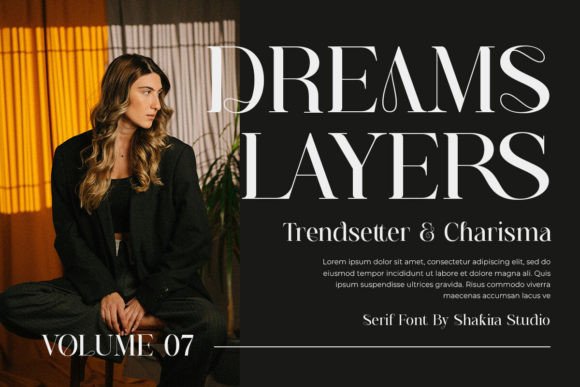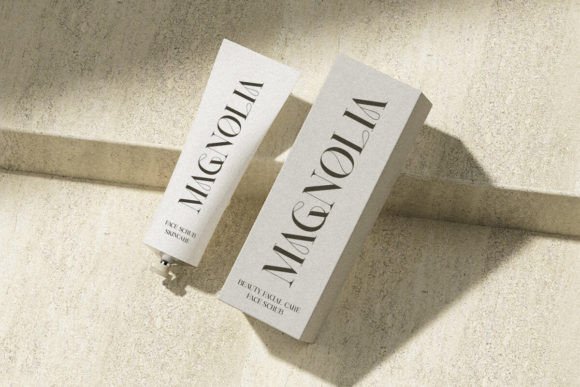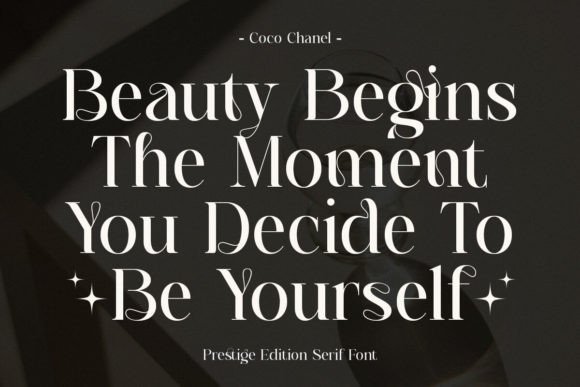
Introduction to Prestige Edition Font
Have you ever been working on a creative project, pouring your heart and soul into it, only to realize that the right font is missing to elevate your design to the next level? For designers, finding the perfect font can be a game-changer, making all the difference in conveying the desired message and aesthetic. That’s where Prestige Edition Font comes in – a luxurious Display Serif font that exudes sophistication and elegance.
Designed to make a statement, Prestige Edition Font is a high-quality design resource that’s perfect for high-end branding, fashion editorials, and upscale packaging. Its elegant design, complete with attractive alternates and ligatures, will transport your designs to new heights. And with both regular and italic versions available, you’ll have the flexibility to choose the perfect fit for your creative project.
Prestige Edition Font
- Large character set with extended language support, ideal for global branding and marketing materials
- High-quality design with a unique, sophisticated aesthetic, perfect for luxury and premium branding
Honest Review: Prestige Edition Font
I recently had the chance to experiment with the Prestige Edition Font, and I must say it’s been a game-changer for my creative projects. This font is a design resource that truly stands out from the crowd.
- ✨ High-quality design that exudes luxury and sophistication
- ✨ Transparent background, making it easy to layer and customize
- ✨ Perfect for use in logos, branding, and other high-end creative projects
- ⚠️ Limited font styles and weights available
- ⚠️ May not be suitable for use in body text, as it can be quite ornate
Overall, I’m really impressed with the Prestige Edition Font. It’s a fantastic design resource that adds a touch of class to any creative project. While it may have its limitations, it’s definitely worth checking out – especially if you’re looking to elevate your brand’s visual identity.
Prestige Edition Font
Using with a Transparent Background
One of the unique features of the Prestige Edition Font is its transparent background, making it perfect for creating stunning graphics and designs.
The Prestige Edition Font is ideal for:
- Creating high-end business cards and marketing materials
- Designing luxurious packaging and branding materials
- Adding a touch of sophistication to your website and social media graphics
Tips for Getting the Most Out of the Prestige Edition Font
Here are a few tips to help you get the most out of the Prestige Edition Font:
- Experiment with different font sizes and styles to create a unique look
- Combine the font with other design elements to create a cohesive design
- Use the font in conjunction with a transparent background to create a stunning visual effect
Alternatives to Prestige Edition Font
Aurora Script is a beautiful, elegant font perfect for creative projects that require a touch of sophistication. It’s ideal for wedding invitations, luxury branding, and high-end design work. Unlike Prestige Edition Font, Aurora Script has a more fluid and dynamic feel, making it suitable for projects that require a sense of movement and energy.
What is the recommended resolution for using the Prestige Edition Font in high-quality designs?